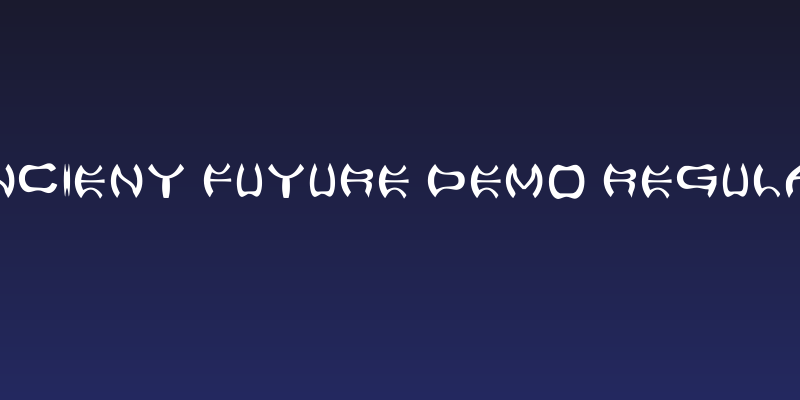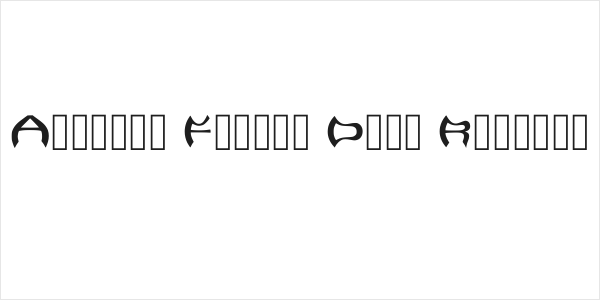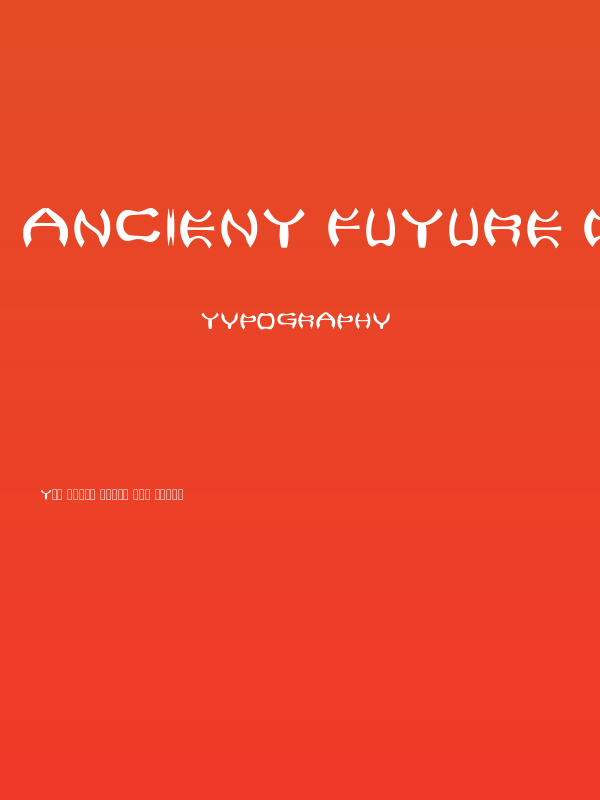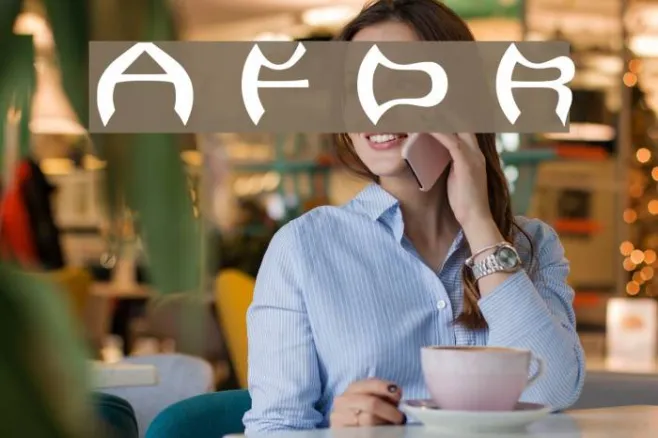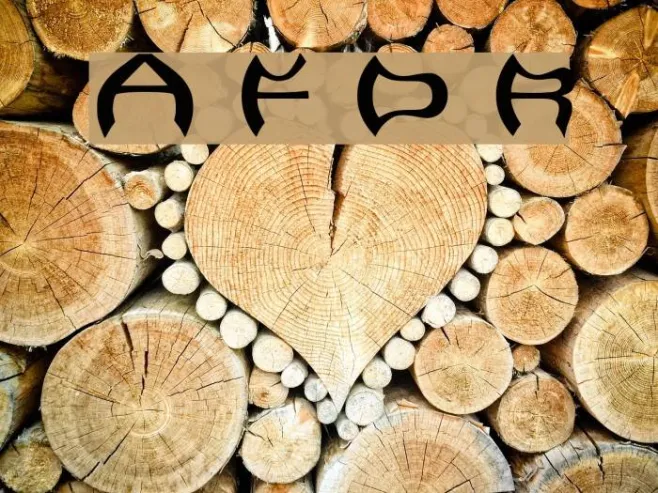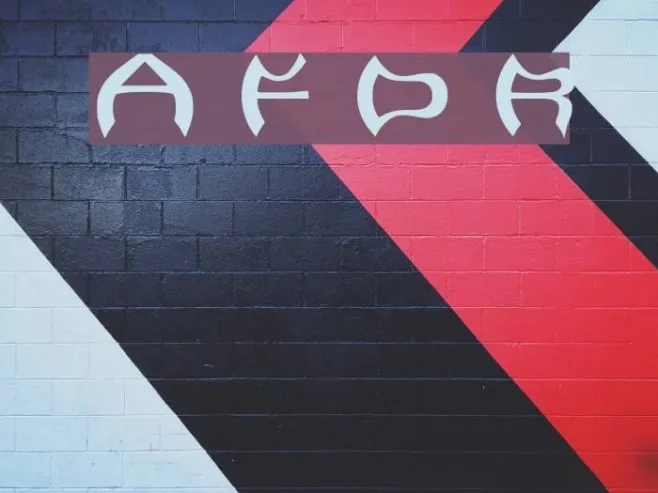
Ancient Future Demo Regular Font
Ancient Future Demo Regular Description
This font features a unique blend of ancient and futuristic design elements, creating a striking visual impact. The uppercase letters are characterized by sharp, angular lines and intricate detailing that evoke a sense of mystery and sophistication. The lowercase letters maintain a consistent style, with smooth curves and a slightly condensed form that enhances readability. The numerals and special characters follow the same design principles, ensuring a cohesive look across all text. This font's distinct appearance makes it ideal for projects that require a bold and unconventional aesthetic.
| Proposed Projects | Ideal for sci-fi themed projects, video game titles, movie posters, and branding that seeks a unique and bold aesthetic. |